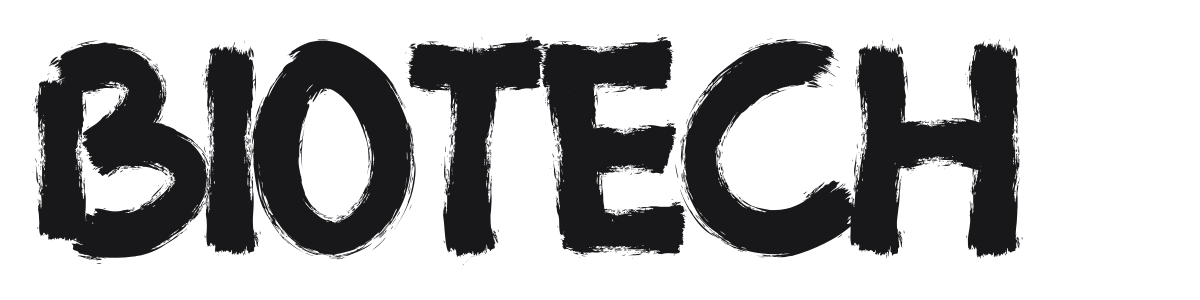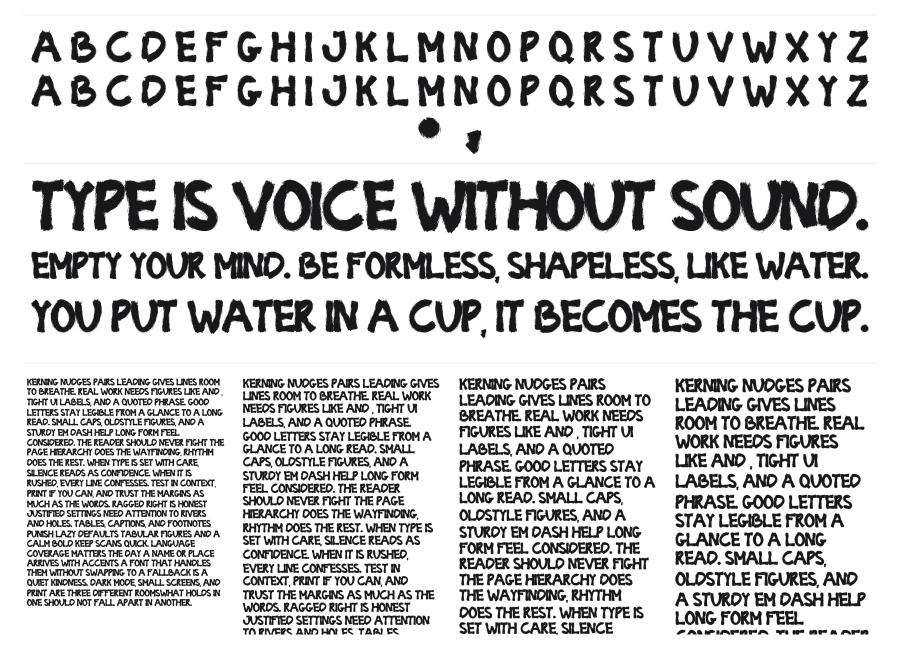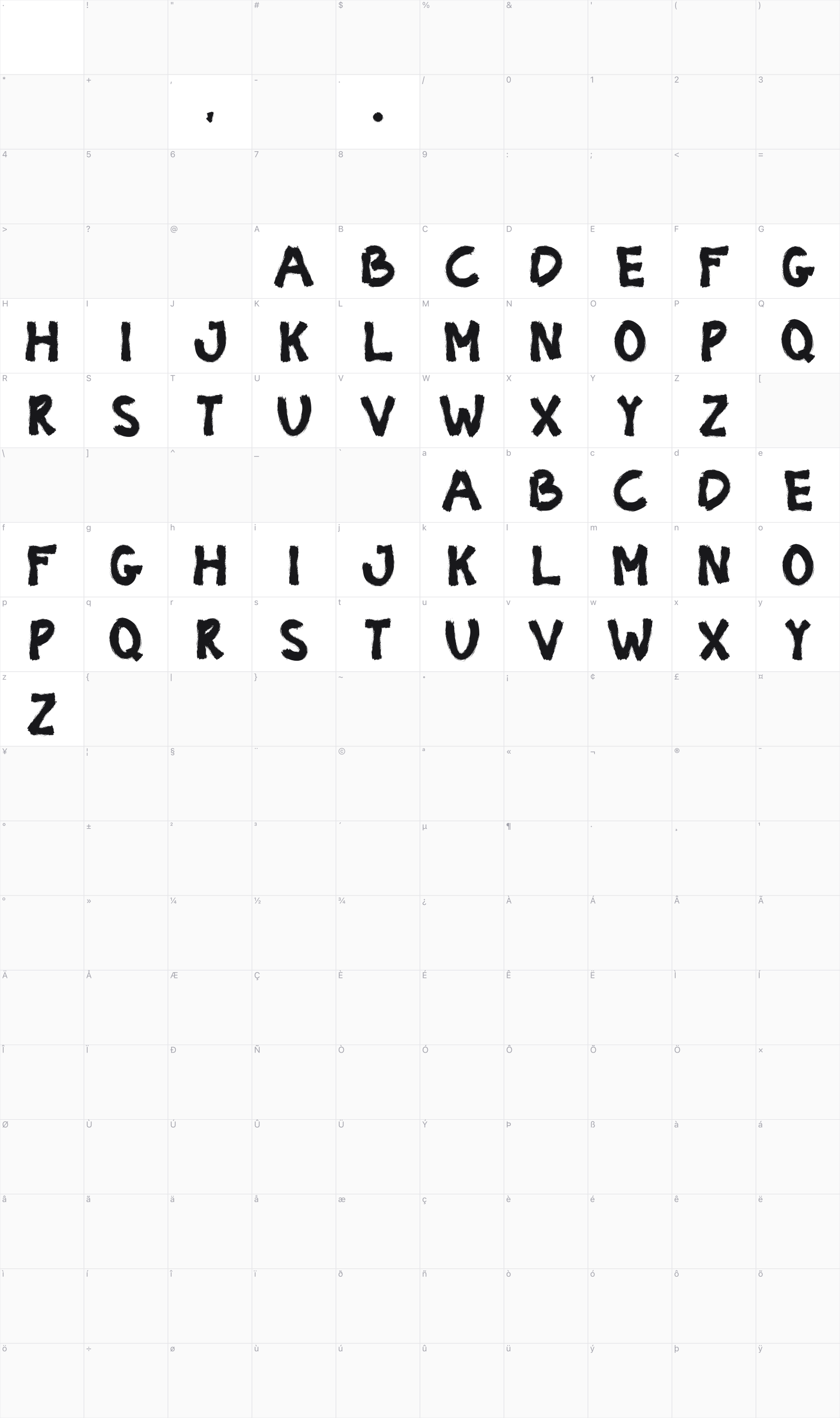
Biotech
Biotech is a heavy brush-painted display font built on thick, rough strokes with bristle texture running through every character. The ragged edges and spontaneous feel give it an authentic hand-inked quality that sits somewhere between street art and DIY punk flyers. Strong at large sizes where the texture reads clearly.